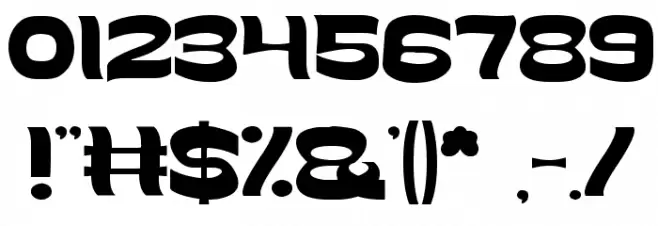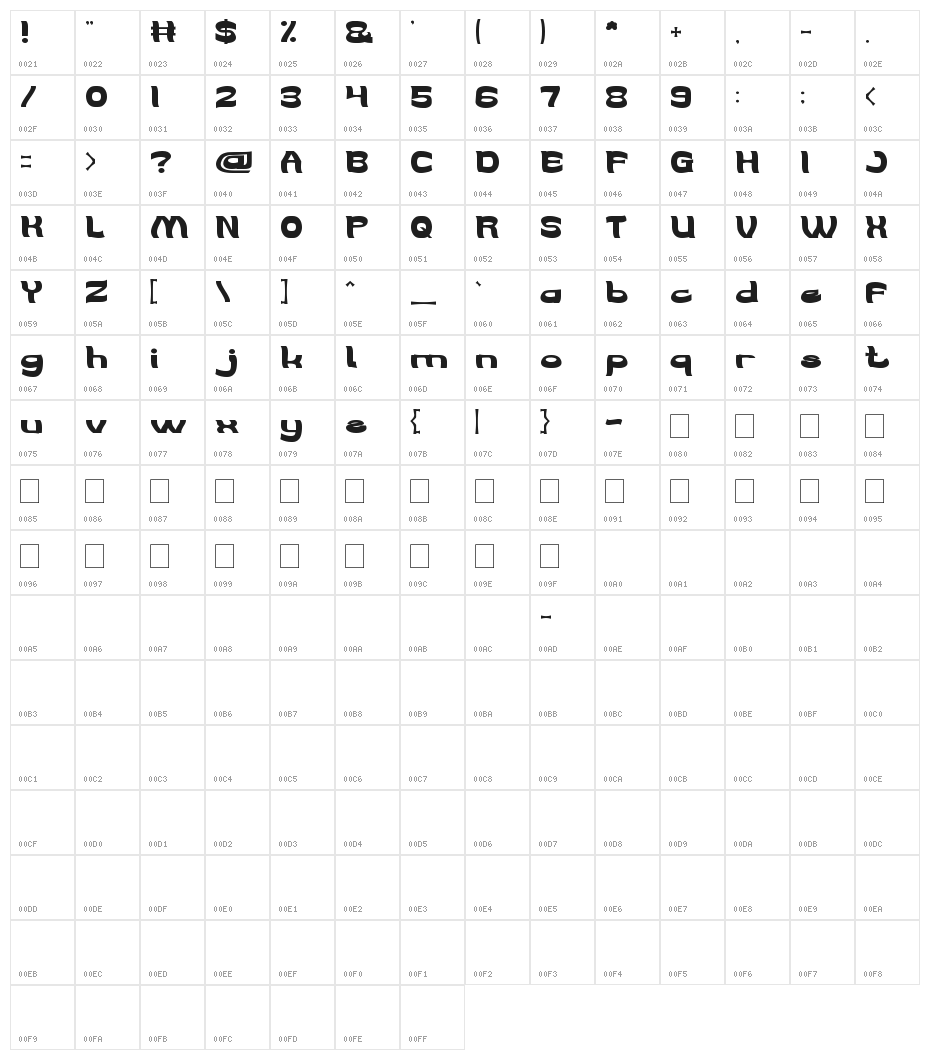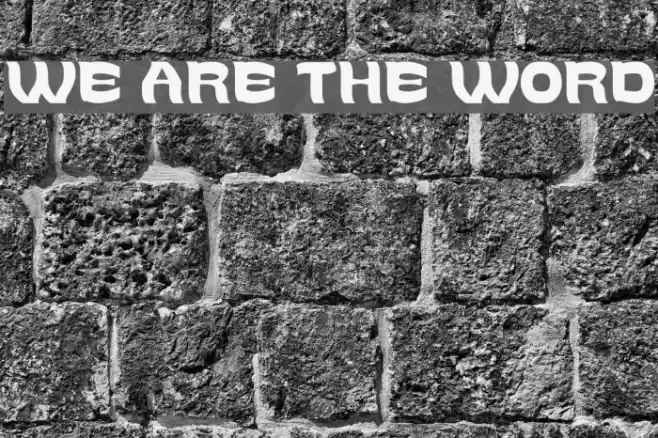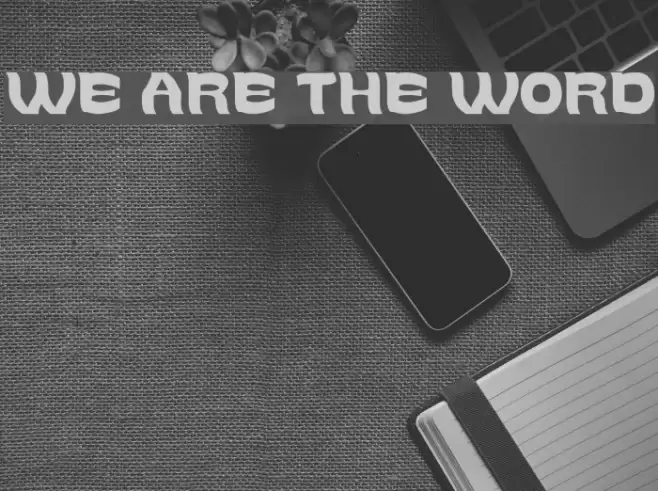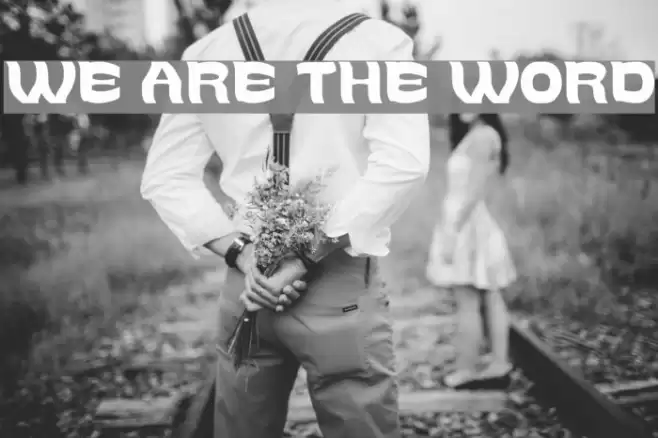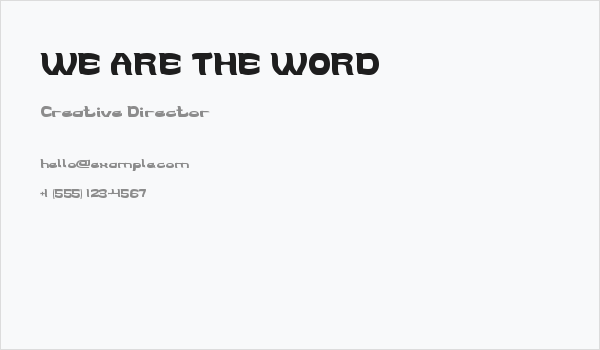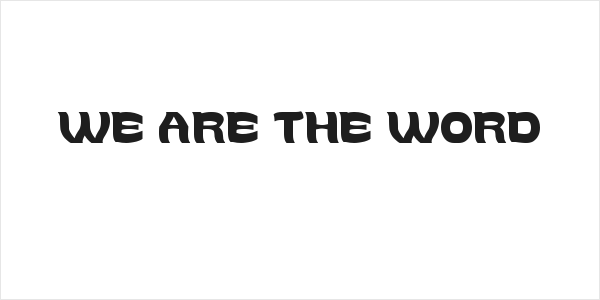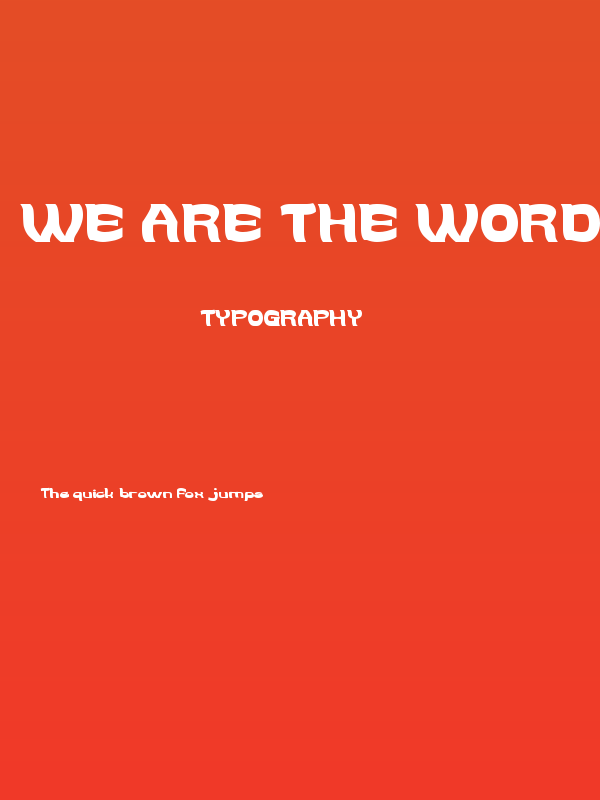
WE ARE THE WORD Font
WE ARE THE WORD Description
This font features a bold and playful design with a unique, wavy structure that gives it a dynamic and energetic appearance. The characters are thick and rounded, with a slight tilt that adds a sense of movement. The uppercase and lowercase letters maintain a consistent style, while the numbers and special characters are equally bold and expressive. This font's distinctive style makes it stand out, offering a creative and modern twist to any text.
| Proposed Projects | Ideal for branding, posters, children's books, and creative projects that require a lively and engaging typeface. |